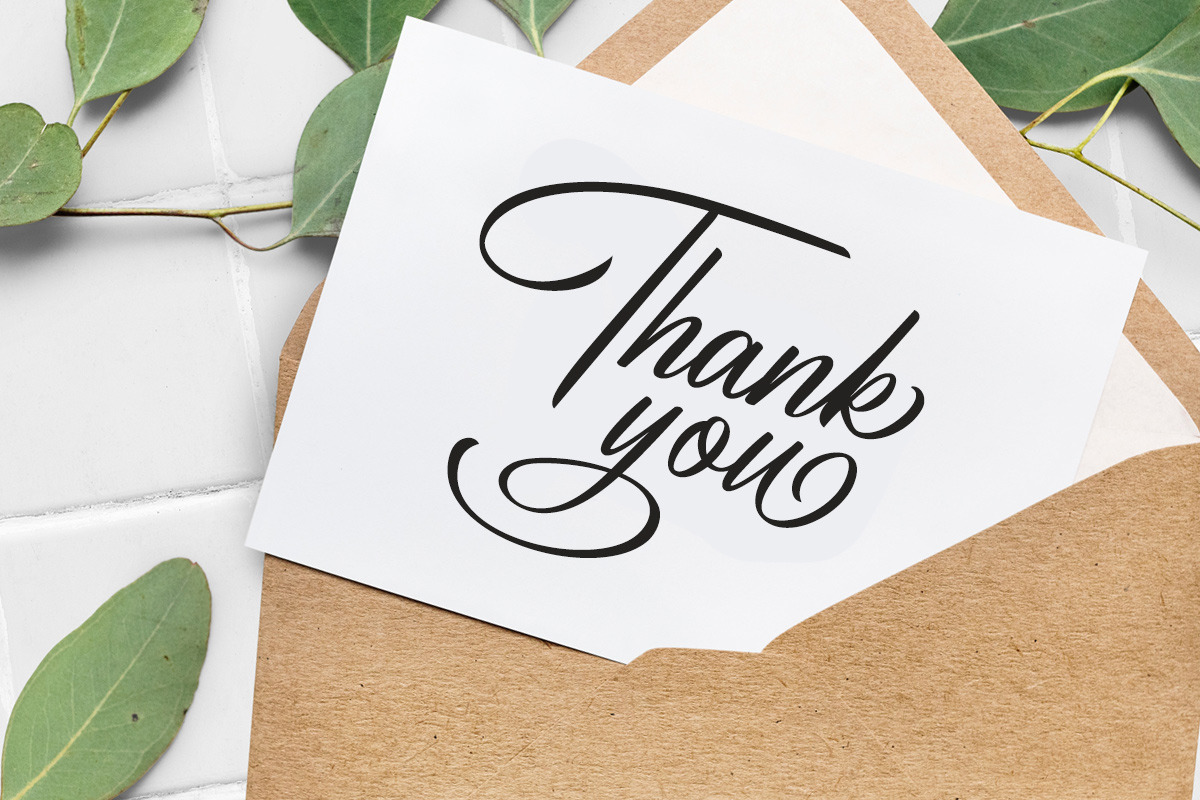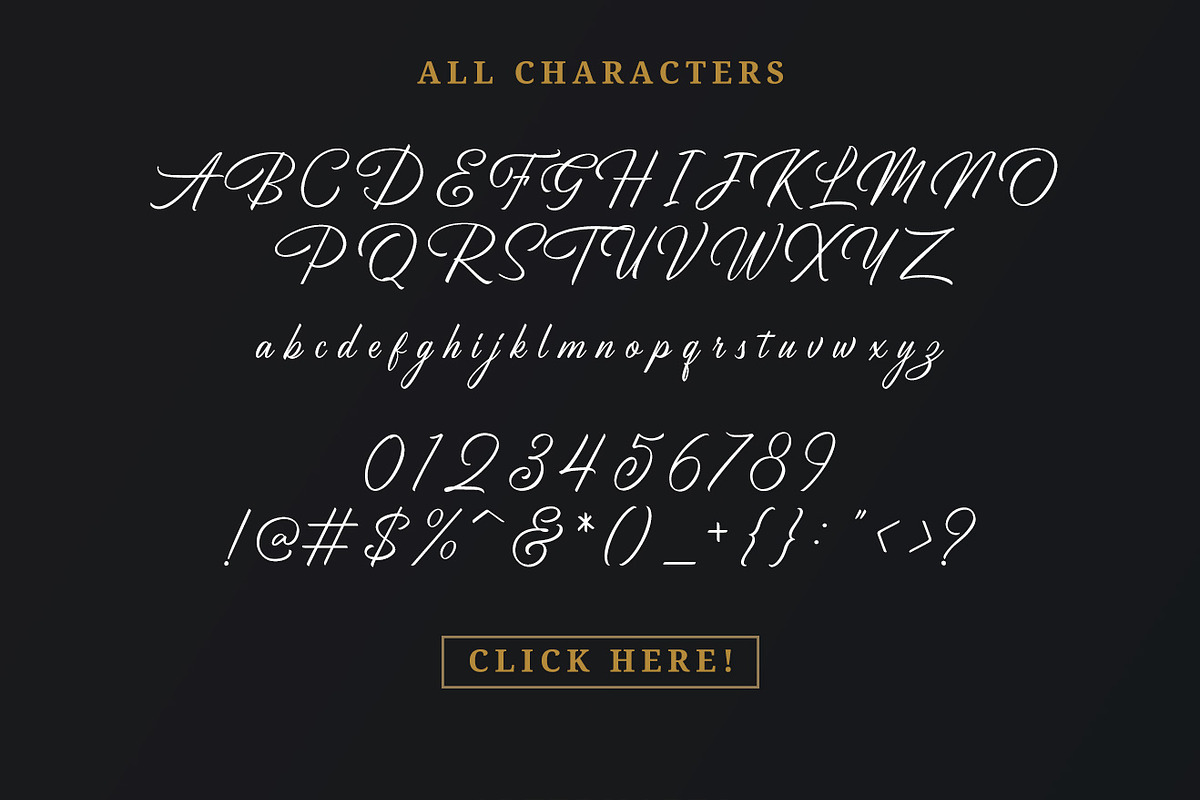
Birmingham - Signature Script
Introducing, Birmingham, an elegant signature script
Birmingham - Signature Script is an elegant signature that contain lowercase, uppercase, symbol, and also support multi language. There's a lot alternates in this font. You can use this font to make a logo for branding, beautiful fashion design, suitable for wedding invitation, or for an authentic signature. Also already PUA Encoded.
Foreign Languages Support: ÀÁÂÃÄÅÇÈÉÊËÌÍÎÏÑÒÓÔÕÖØÙÚÛÜÝßàáâãäåæçèéêëìíîïñòóôõöøùúûüýÿ